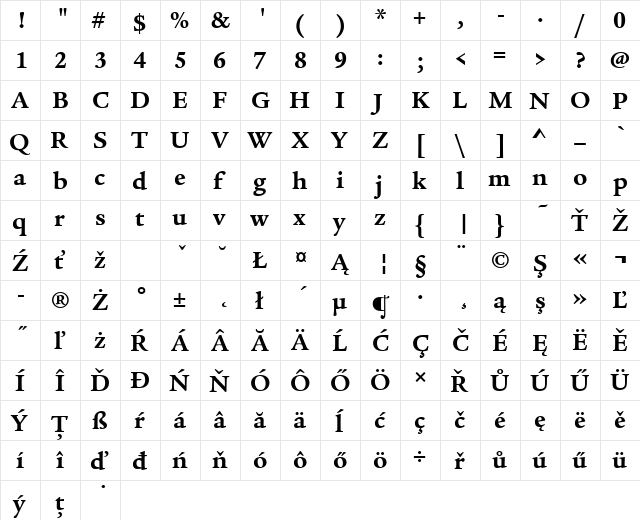
LegacySerItcTEE Bold
Design Context for LegacySerItcTEE Typeface
LegacySerItcTEE takes a measured approach to typography — its balanced proportions and neutral character make it a reliable workhorse for both digital and print work. The heavy weight commands attention and anchors typographic hierarchies.